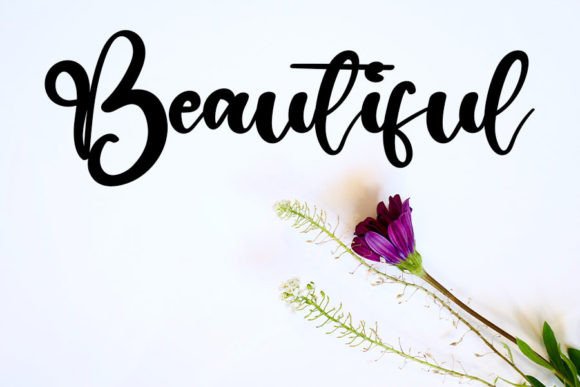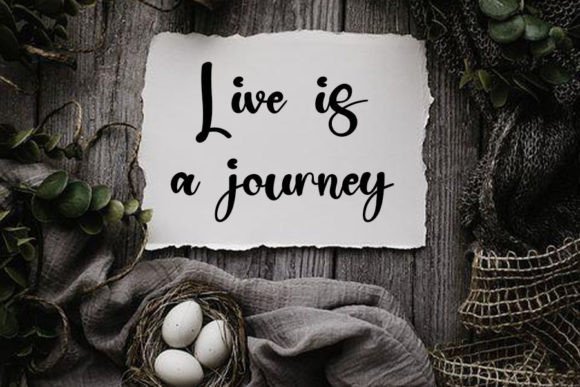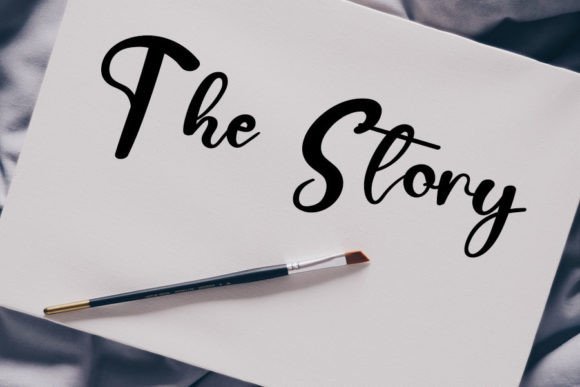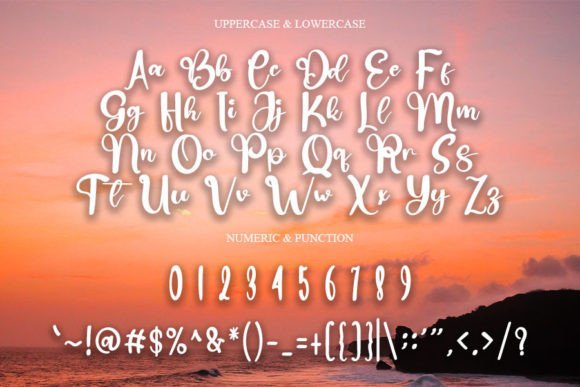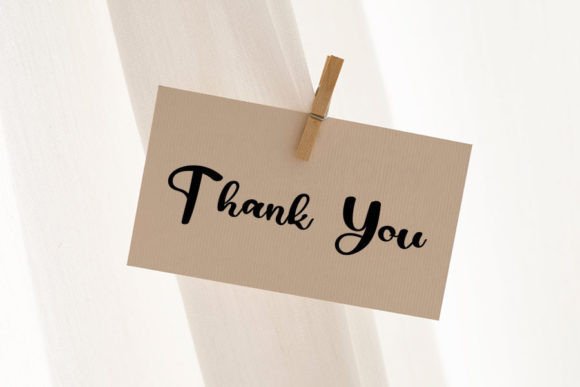
The Magic of Beach Font: A Designer’s New Best Friend
I’ll never forget the time I was working on a branding project for a beachside cafe, and I just couldn’t find the right font to capture the laid-back, yet elegant vibe of the brand. The client wanted something that felt like a handwritten sign you’d find on a beachy shop, but still looked polished and professional. That’s when I stumbled upon Beach Font, and let me tell you, it was love at first sight! ✨
An Honest Review of Beach Font
- ✨ Elegant yet quirky: Beach Font has this amazing balance of elegance and playfulness that makes it perfect for a wide range of projects.
- ✅ Clean and legible: The font is incredibly clear, even at smaller sizes, which makes it super versatile.
- 💕 Handwritten charm: It has that beautiful, human touch that makes it feel like it was written just for your project.
While Beach Font is amazing, there are a few things to keep in mind. ⚠️ Some users might find that the font can be a bit sensitive to kerning, so you might need to adjust the spacing between letters for optimal results. Additionally, while it’s incredibly versatile, it might not be the best fit for very formal or corporate projects due to its playful nature.
- Experiment with OpenType features like ligatures and stylistic alternates to give your text some extra flair.
- Dive into the glyphs panel to explore alternative characters and create unique text styles.
The Story Behind Beach Font
Beach Font was inspired by the classic beach signs you’d find on a stroll along the shore. The designer, aiming to capture the effortless elegance and quirky charm of these signs, poured their heart into creating a font that’s both refined and playful. The result is a font that feels like a warm hug for your designs.
| Font Name | Beach Font |
| Author | ONE DESIGN |
A: Yes, Beach Font is great for social media graphics due to its clarity and unique style. It can help make your posts stand out.
Q: Does Beach Font support OpenType features?
A: Yes, Beach Font comes with OpenType features, including ligatures and stylistic alternates, allowing for a high degree of customization.